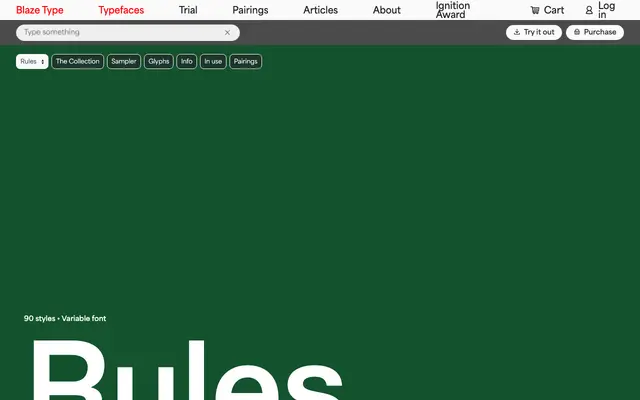
A large variable grotesque from Blaze Type spanning five widths and nine weights, with italics throughout all 90 styles.
Covering Compressed, Condensed, Normal, Extended and Expanded widths, the family offers nine weights from Thin to Black each with a matching italic across all five width variants. The variable font format ties the full range into a single file, making it practical for responsive and multi-platform work. A broad, functional grotesque built for demanding layout systems rather than a single editorial voice.
The page content and style listing suggest a neutral, upright grotesque sans-serif with a wide width range spanning Compressed through Expanded, typical of contemporary workhorse grotesque families.